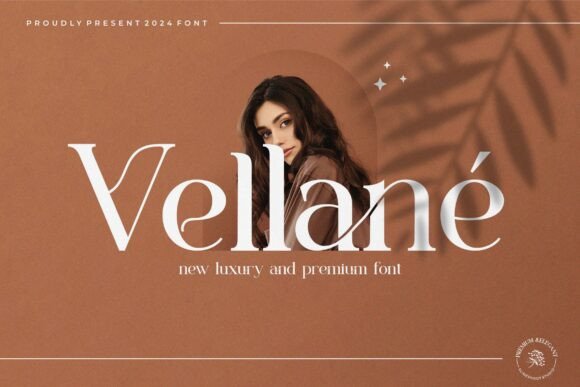
Vellane Font: The Epitome of Elegance and Sophistication
In the realm of typography, fonts play a pivotal role in conveying the tone and aesthetic of a brand, product, or service. Among the myriad of fonts available, Vellane Font stands out as a beacon of elegance and sophistication. This comprehensive article delves into the world of Vellane Font, exploring its characteristics, uses, and the unique value it brings to various design projects.
Introduction to Vellane Font
Vellane Font is a balanced, smooth, elegant, and stylish serif font that has captured the hearts of designers and typography enthusiasts alike. Its subtle serifs and stylish alternations make it an ideal choice for projects that demand a touch of sophistication and refinement. Whether it’s an invitation card design, company logo, movie title, or book cover, Vellane Font fits perfectly, adding a dash of elegance to any design.
Characteristics of Vellane Font
Vellane Serif is a subtle serif font that exudes sophistication and elegance. Its key characteristics include:
- Balanced Design: Vellane Font boasts a balanced design that ensures readability and aesthetic appeal.
- Smooth Lines: The font features smooth lines that contribute to its elegant appearance.
- Elegant Serifs: The subtle serifs in Vellane Font add a touch of sophistication, making it suitable for high-end designs.
- Stylish Alternations and Ligatures: The font includes stylish alternations and ligatures, which make it versatile and perfect for various design projects.
Uses of Vellane Font
Vellane Font’s versatility makes it suitable for a wide range of design projects, including:
- Invitation Card Designs: The font’s elegant appearance makes it perfect for wedding invitation cards, event invites, and other formal invitations.
- Company Logos: Vellane Font can be used to create sophisticated and professional logos for businesses, especially those in the luxury and service sectors.
- Movie Titles and Names: The font’s stylish and elegant appearance makes it suitable for movie titles, posters, and cinema branding.
- Business Cards: Vellane Font can be used to create elegant and professional business cards that make a lasting impression.
- Book Titles and Covers: The font is ideal for book covers, especially for genres like fiction, poetry, and literature.
- Brand Names: Vellane Font can be used to create stylish and sophisticated brand names that reflect a company’s values and aesthetic.
Why Choose Vellane Font?
With so many fonts available, why should designers and businesses choose Vellane Font? Here are a few compelling reasons:
- Sophistication and Elegance: Vellane Font brings a level of sophistication and elegance that is hard to match.
- Versatility: The font’s versatility makes it suitable for a wide range of design projects.
- Readability: Vellane Font ensures excellent readability, making it perfect for both digital and print designs.
- Uniqueness: The font’s unique style and characteristics set it apart from more common fonts, ensuring that designs stand out.
Tips for Using Vellane Font Effectively
To get the most out of Vellane Font, consider the following tips:
- Pair with Complementary Fonts: When using Vellane Font alongside other fonts, choose fonts that complement its elegant and sophisticated style.
- Adjust Font Sizes: Experiment with different font sizes to create visual hierarchy and emphasize key elements.
- Utilize Ligatures and Alternations: Take advantage of Vellane Font’s stylish ligatures and alternations to add a touch of uniqueness to your designs.
- Consider Line Spacing: Ensure adequate line spacing to maintain readability, especially in longer texts.
Vellane Font is a powerful tool for designers and businesses looking to add a touch of elegance and sophistication to their projects. Its balanced design, smooth lines, elegant serifs, and stylish alternations make it a versatile and refined choice. By understanding its characteristics, uses, and tips for effective use, designers can unlock the full potential of Vellane Font and create stunning designs that leave a lasting impression.
Future of Typography: Where Does Vellane Font Fit In?
As typography continues to evolve, fonts like Vellane are leading the way in redefining elegance and sophistication in design. With its timeless appeal and versatility, Vellane Font is poised to remain a popular choice for designers and businesses in the years to come.